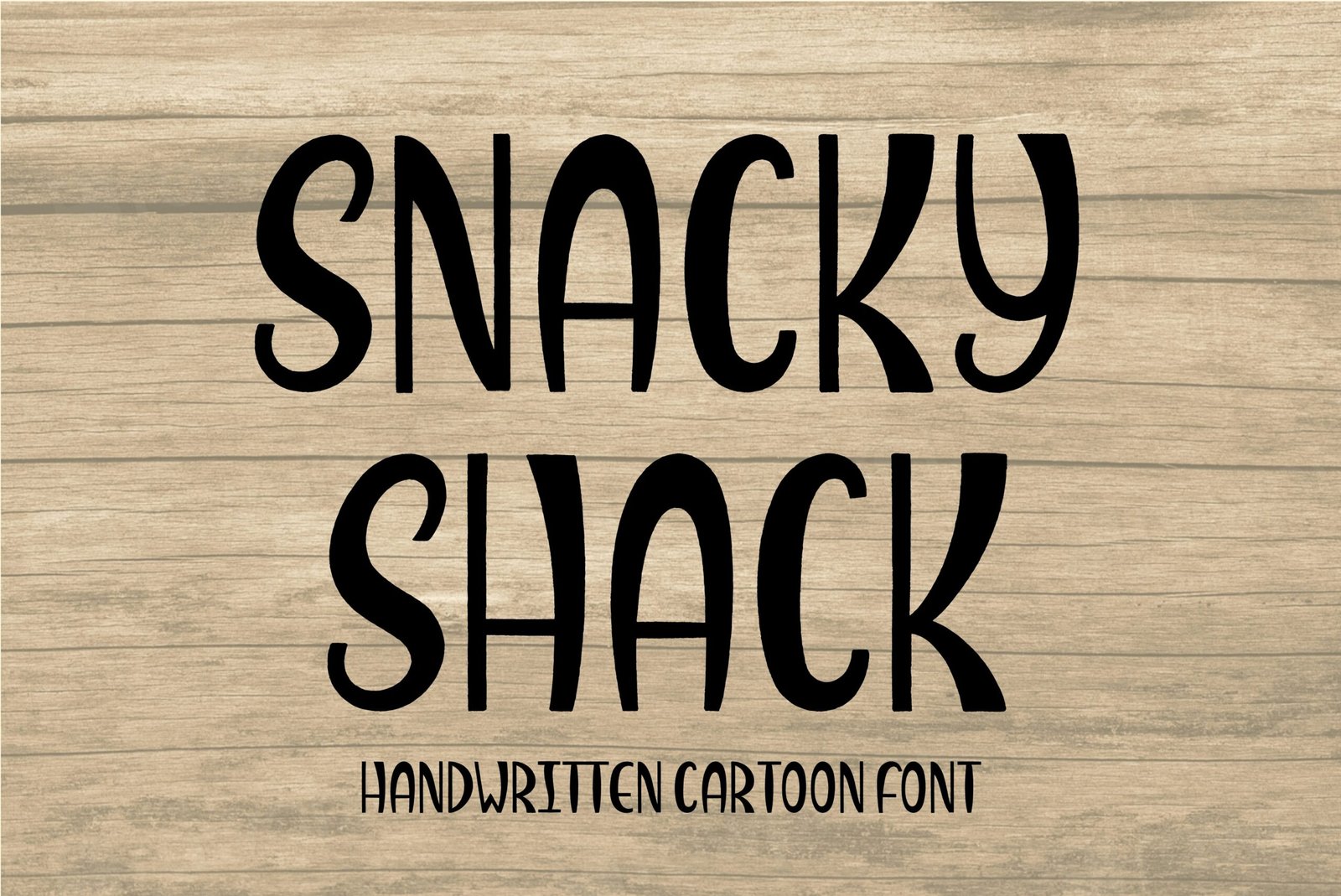
Fancy cartoon font “Snacky Shack”. Perfect for advertising and display purposes, including banners, book covers, shirts, posters, logos and much more!
This is an ALL CAPS font.